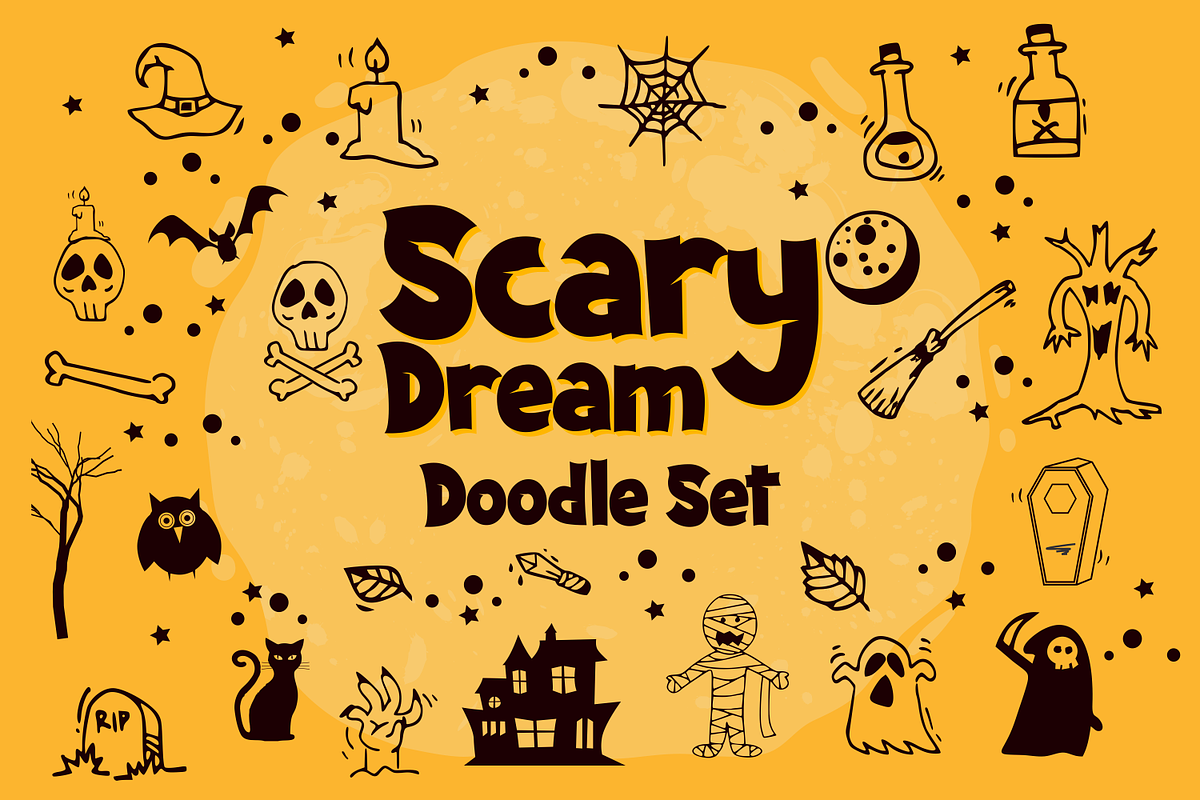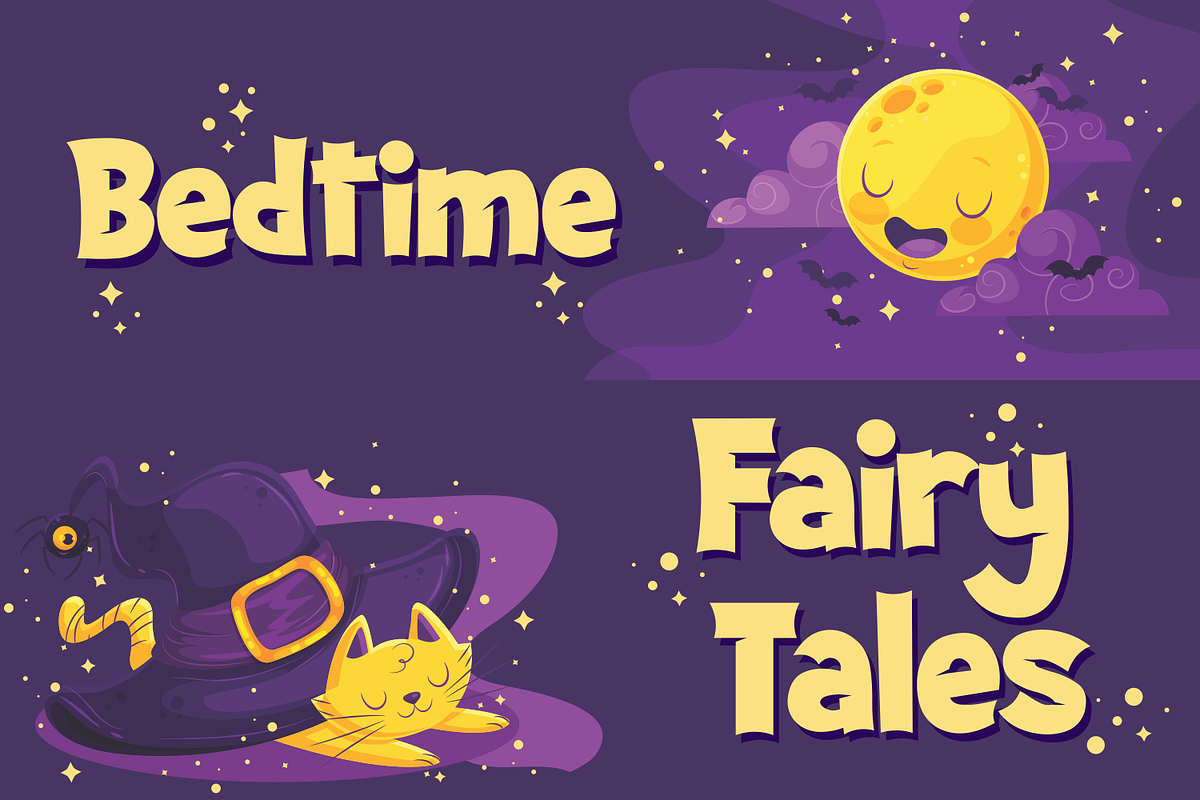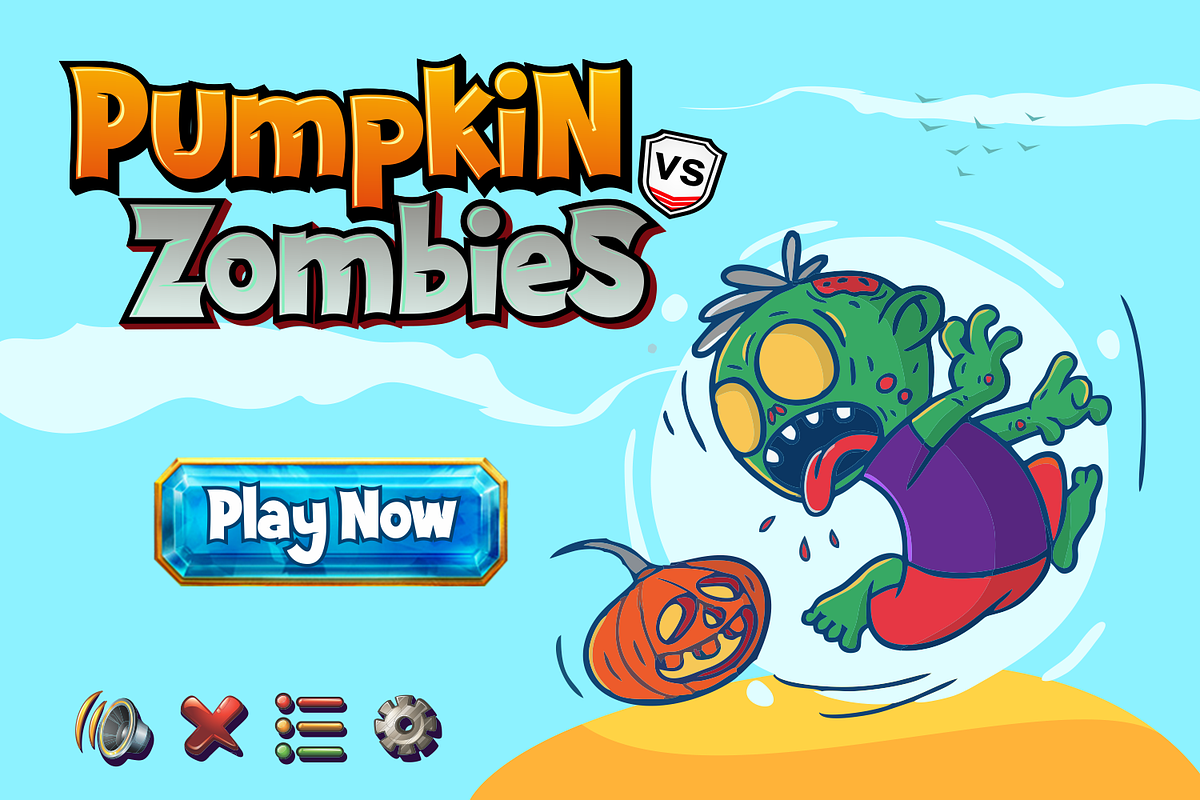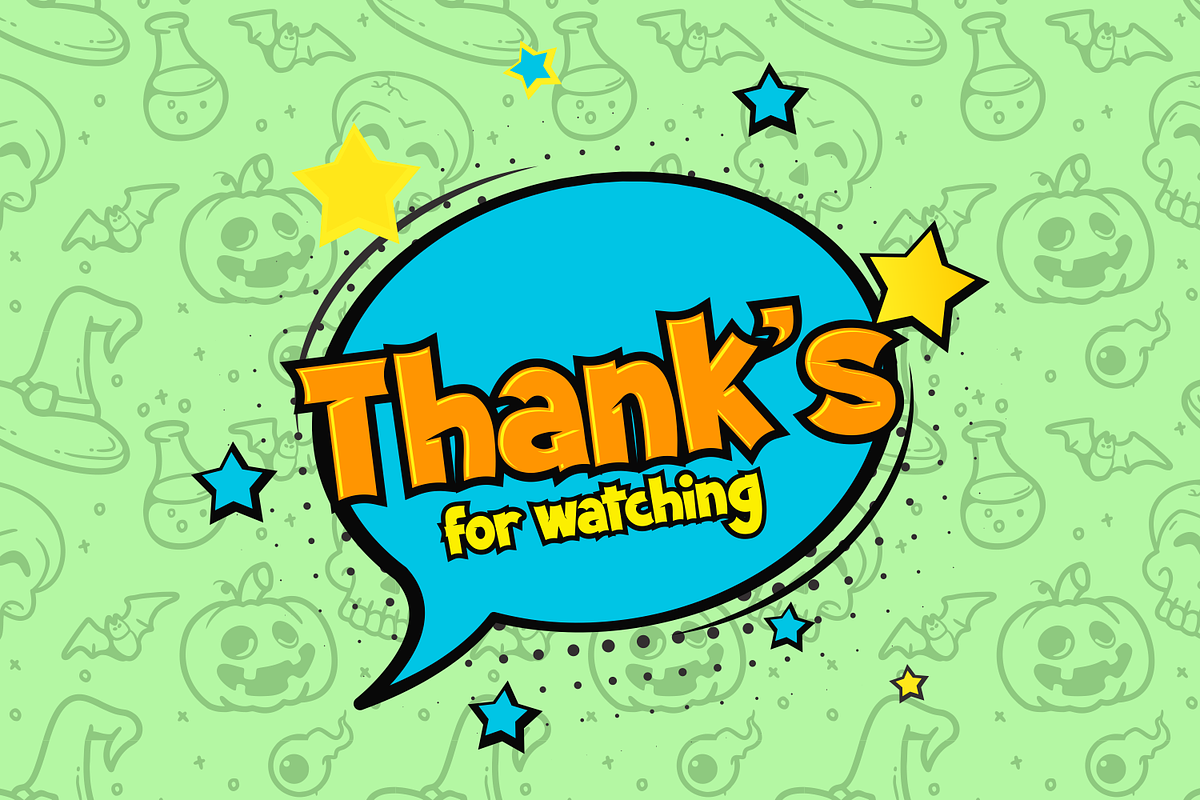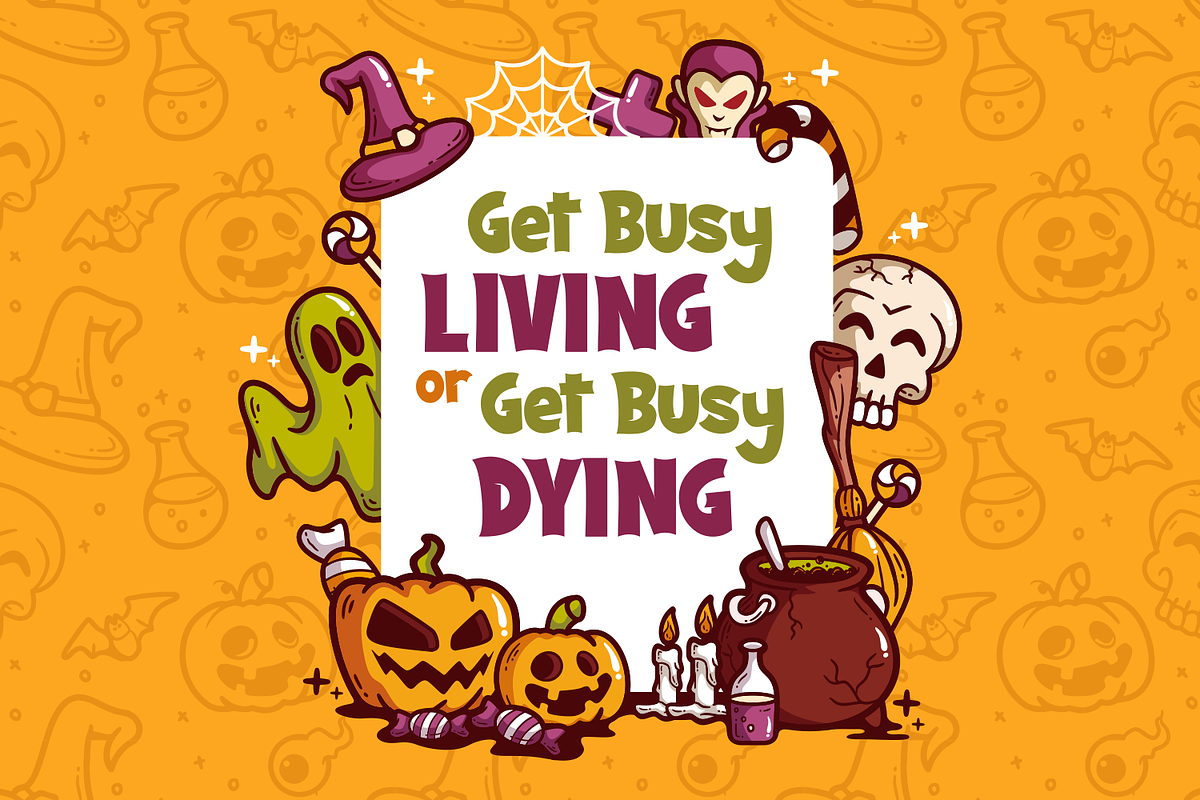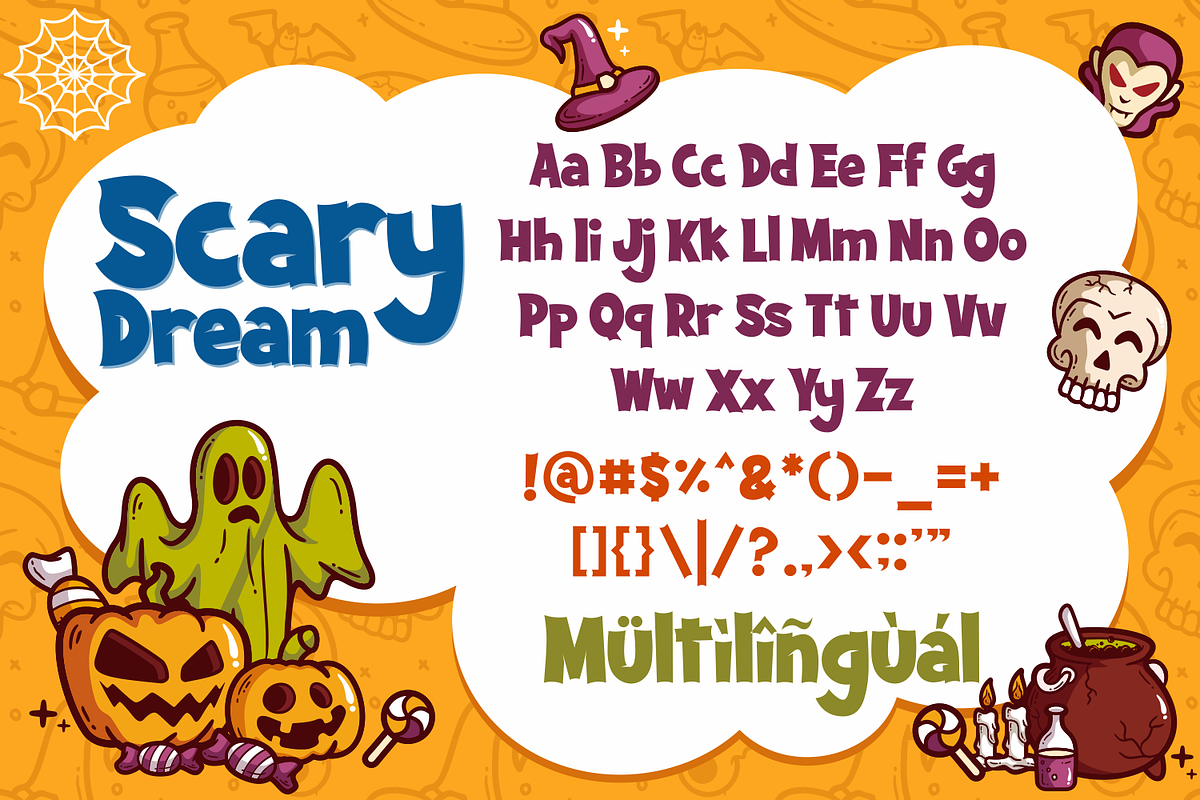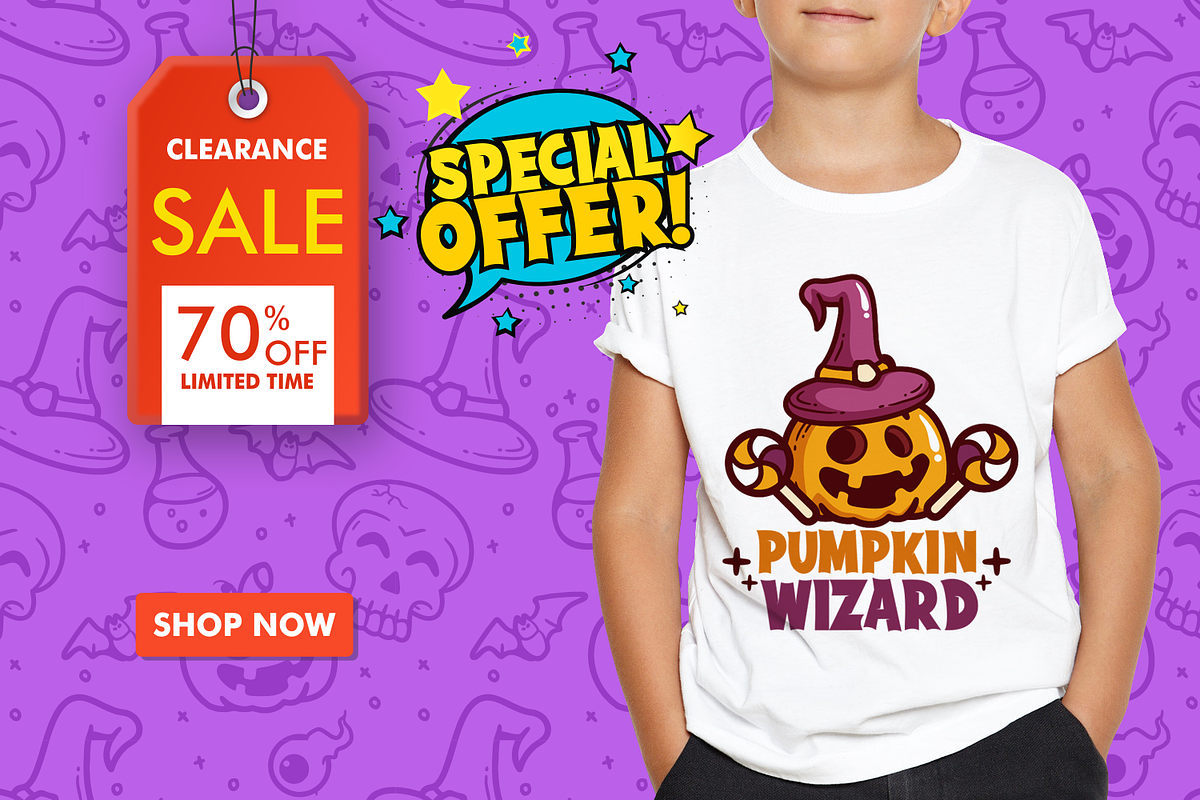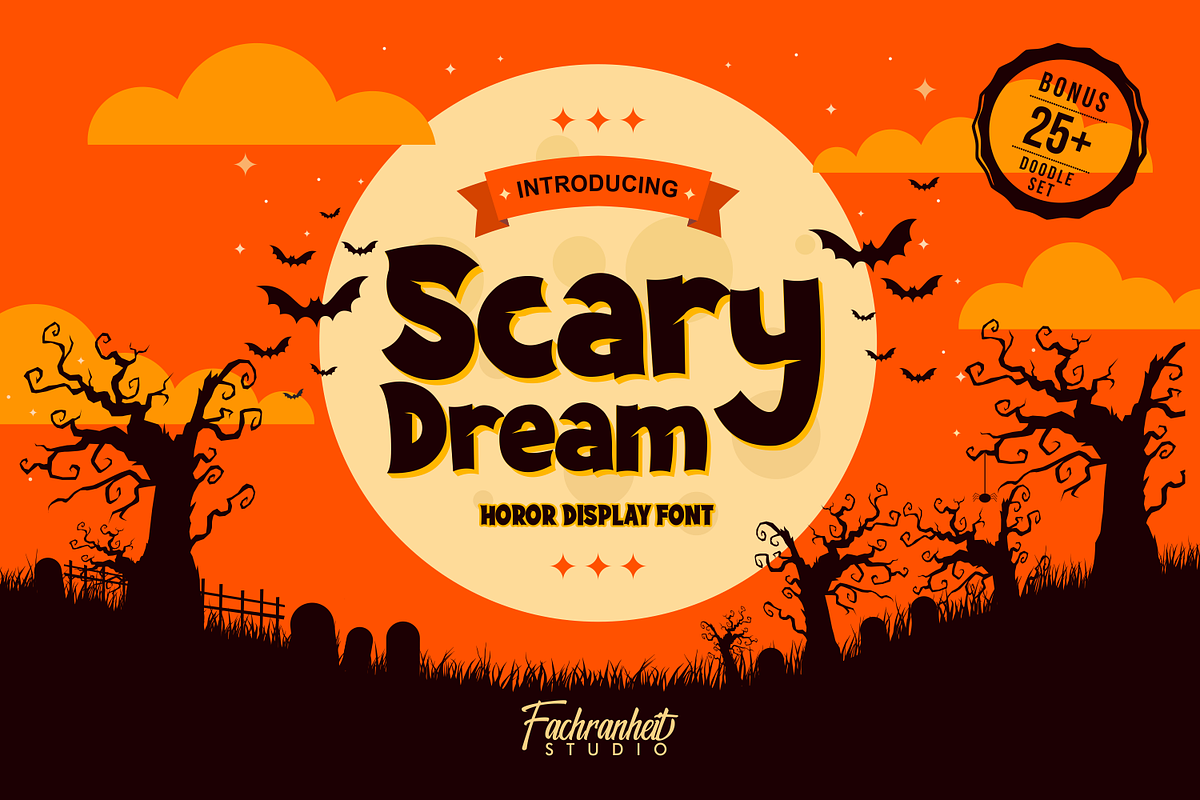
Scary Dream
Scary Dream is a bold display font, carefully handcrafted to become a true favorite. with funny horror style and doodle set bonus. Spooky and unique, it will be the perfect choice for each of your Halloween designs!
The unique and simple characteristics of Scary Dream make it very suitable for various purposes such as quotes, t-shirt designs, flyers, youtube channels, labels, logos etc. Here come with 2 style.
- Scary Dream
- Scary Dream Italic
- Doodle set bonus
- Multilanguage Support